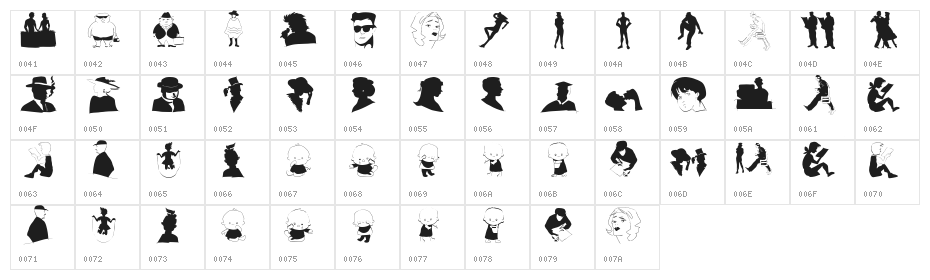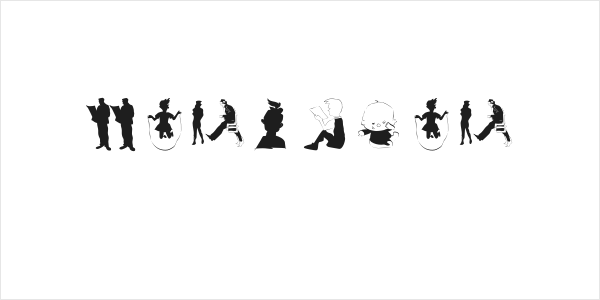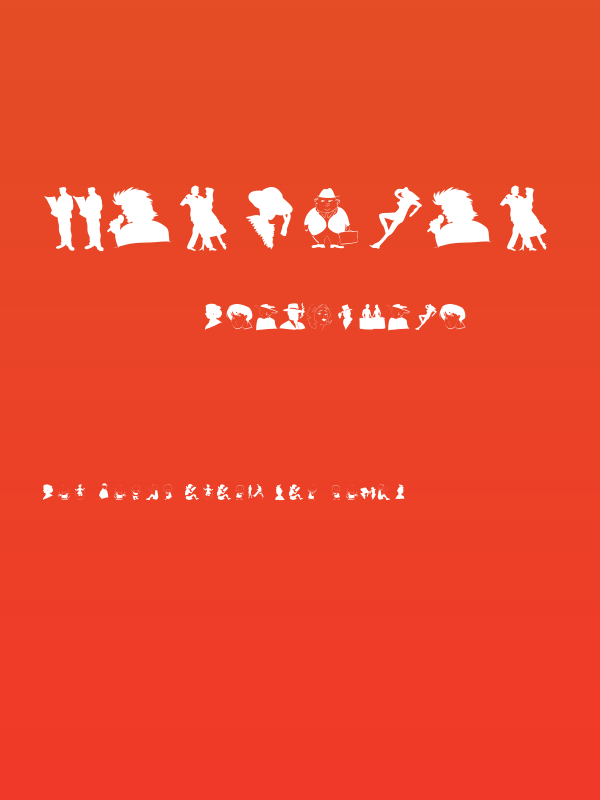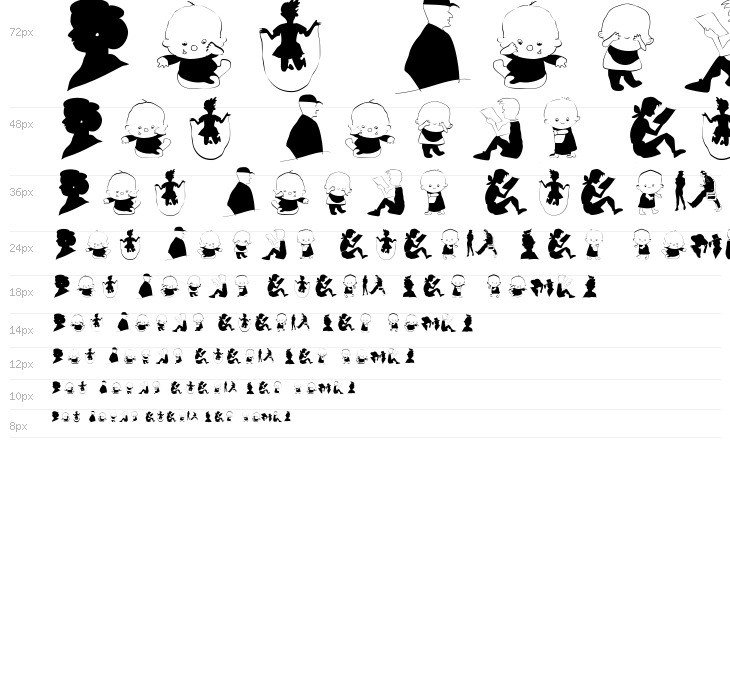
Menschen Font
Menschen Description
A decorative dingbat-style font featuring a variety of human silhouettes and cartoon-like figures, including adults and children in different poses and activities, rendered in bold black and white with high contrast and playful, illustrative style.
| Overall Style | Decorative, Playful, Illustrative |
| Use Case | Graphic elements, Themed headlines, Posters, Educational visuals |
| Proposed Projects | ChildrenΓ’β¬β’s books, playful posters, educational materials, themed invitations, graphic design elements. |